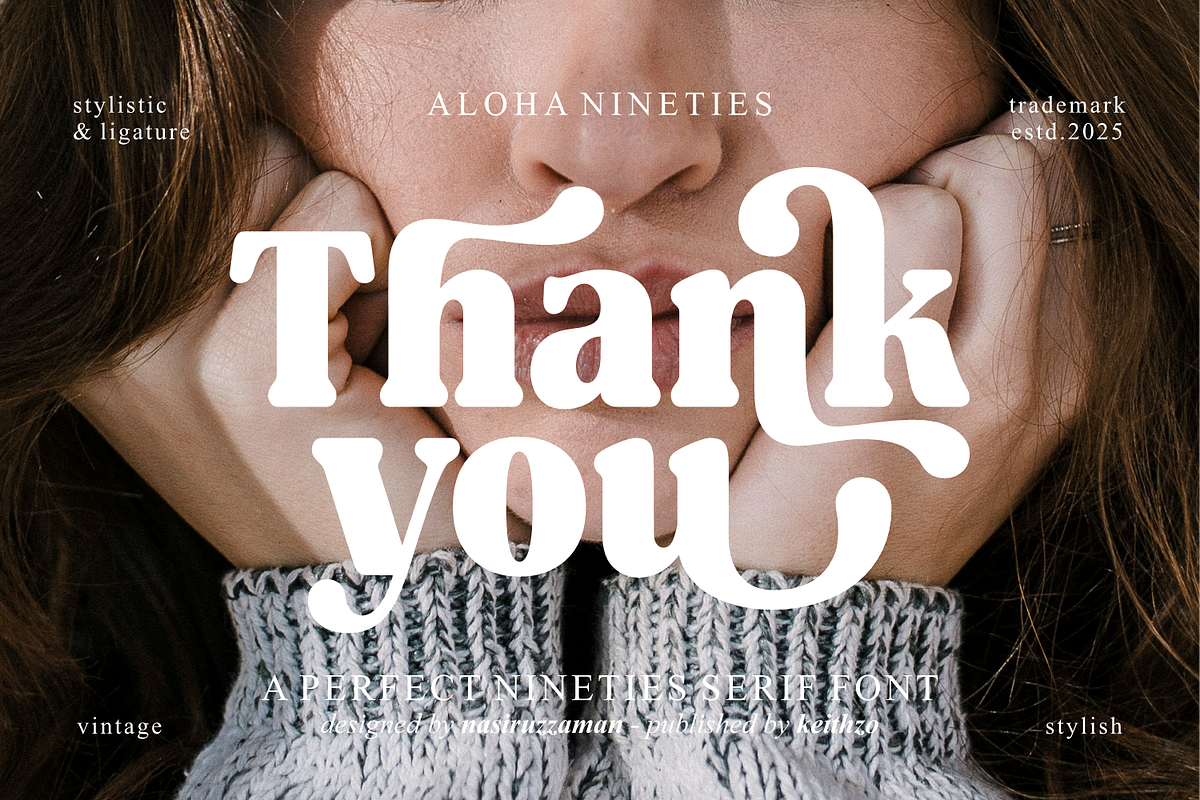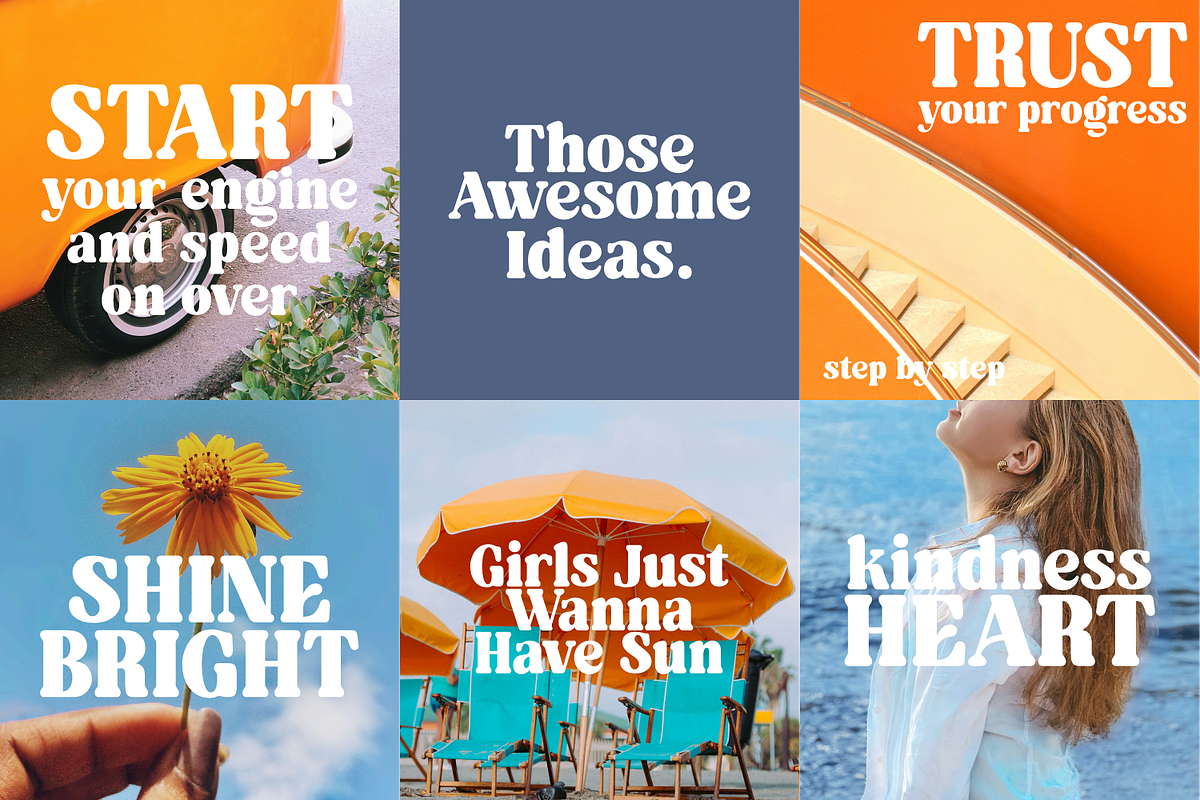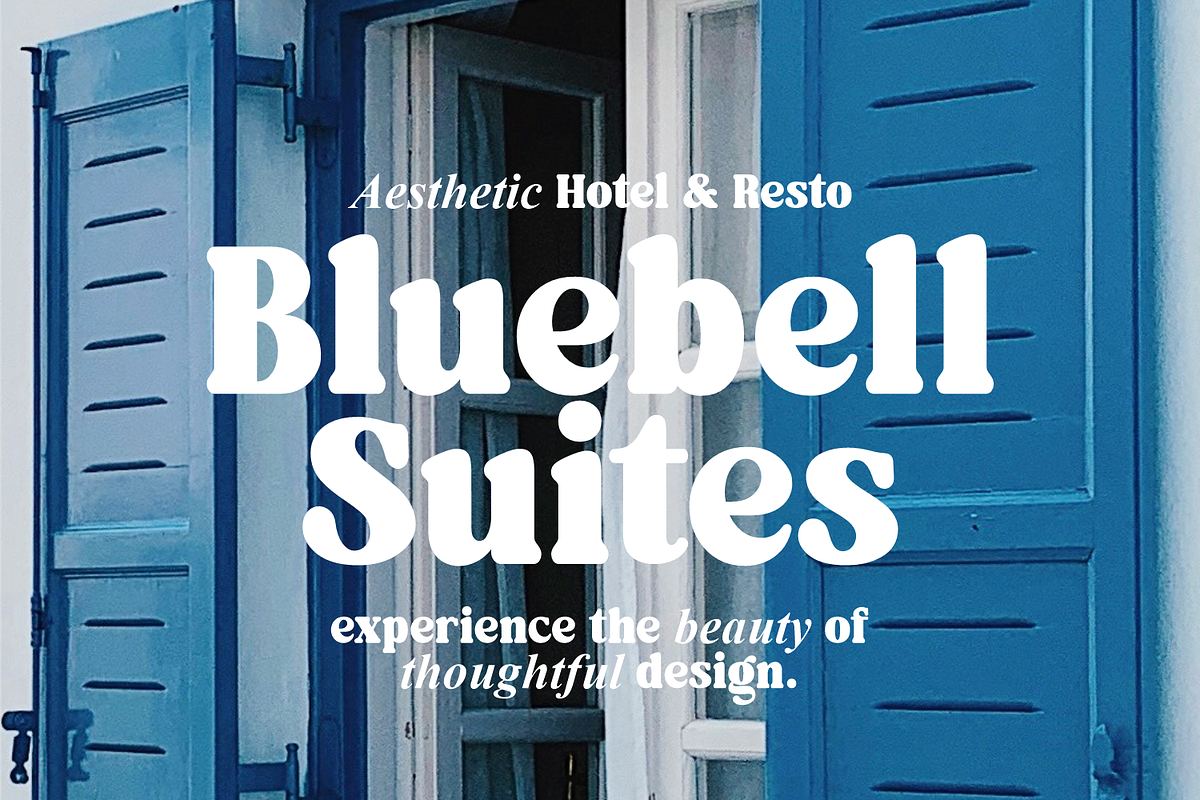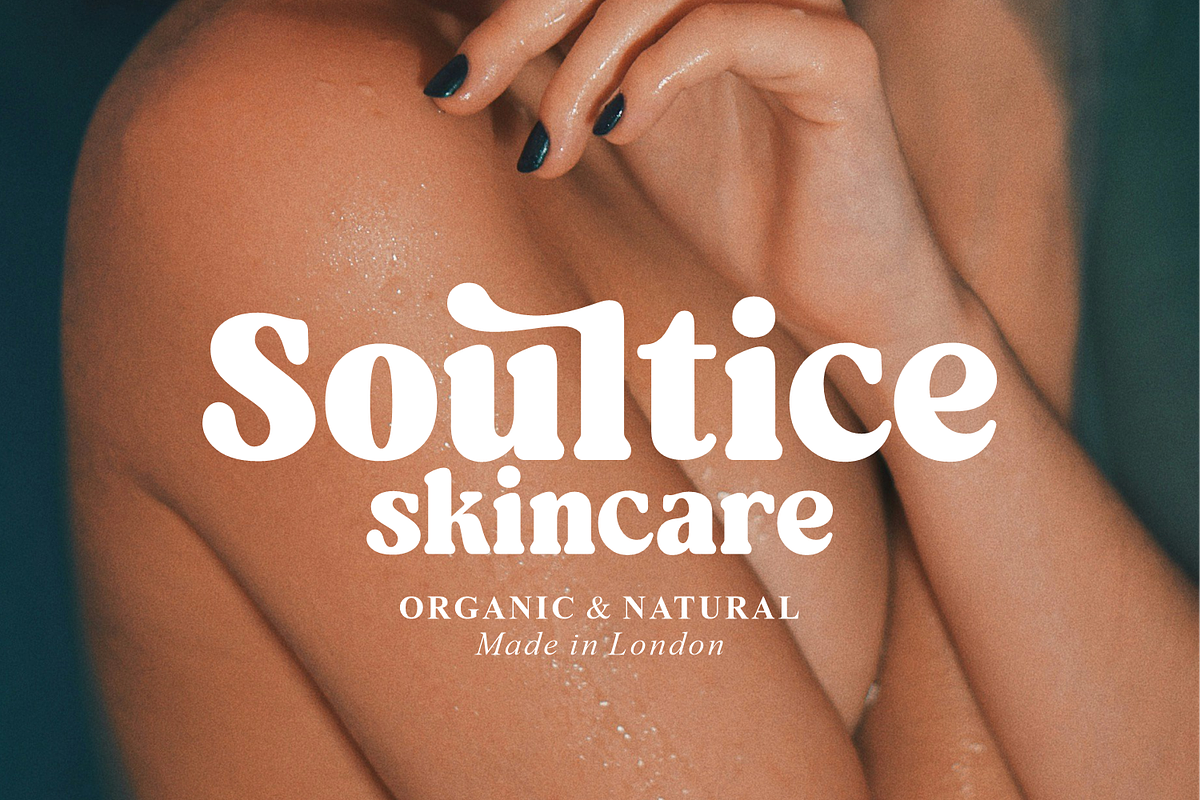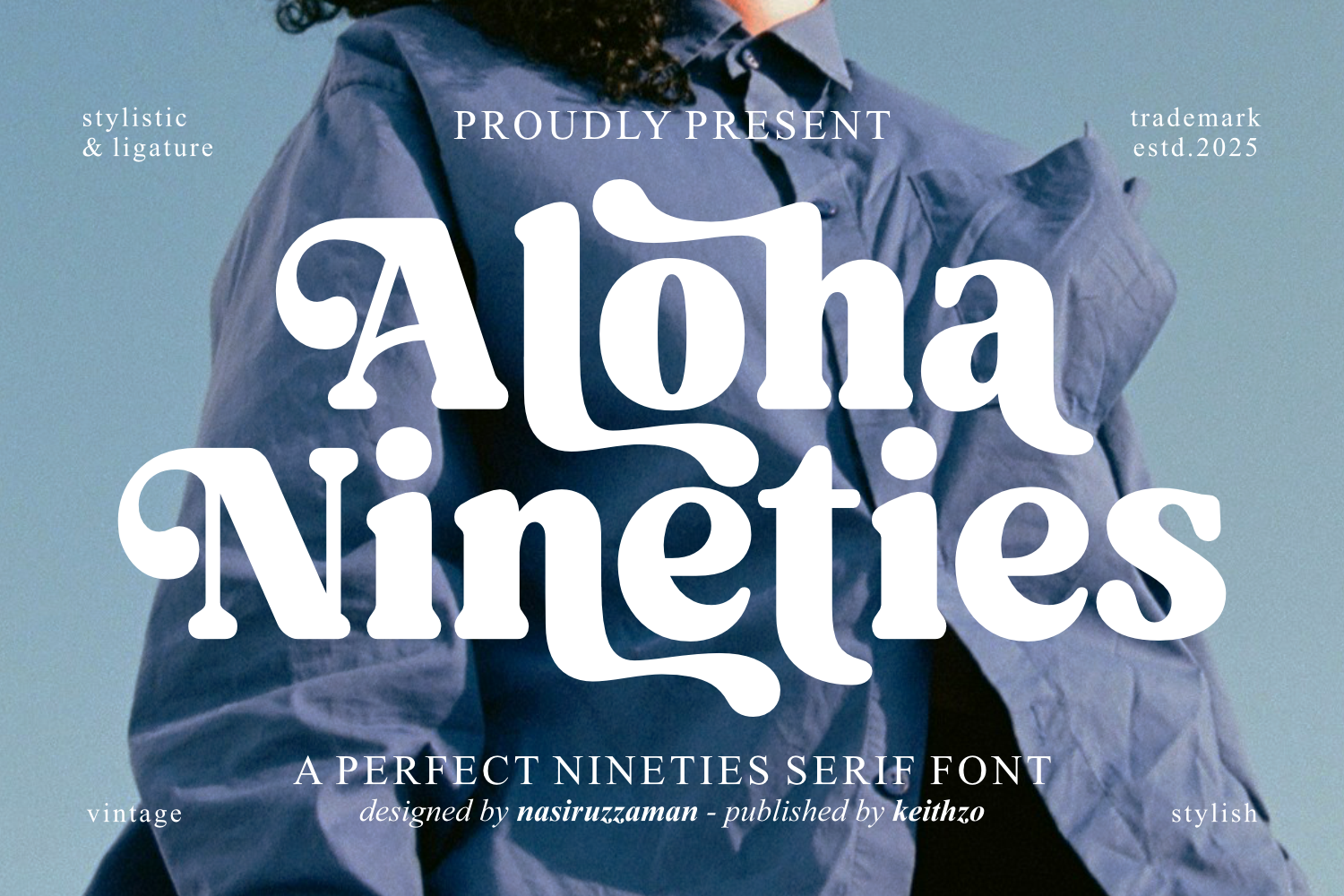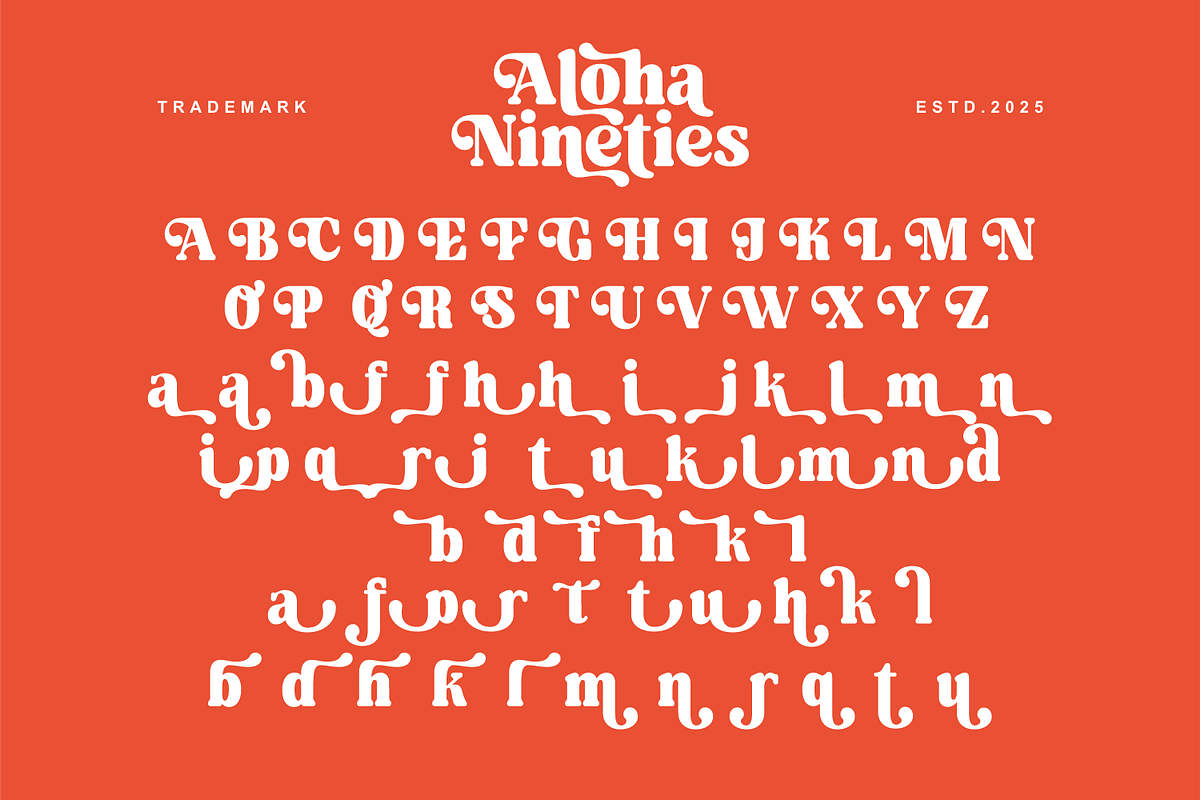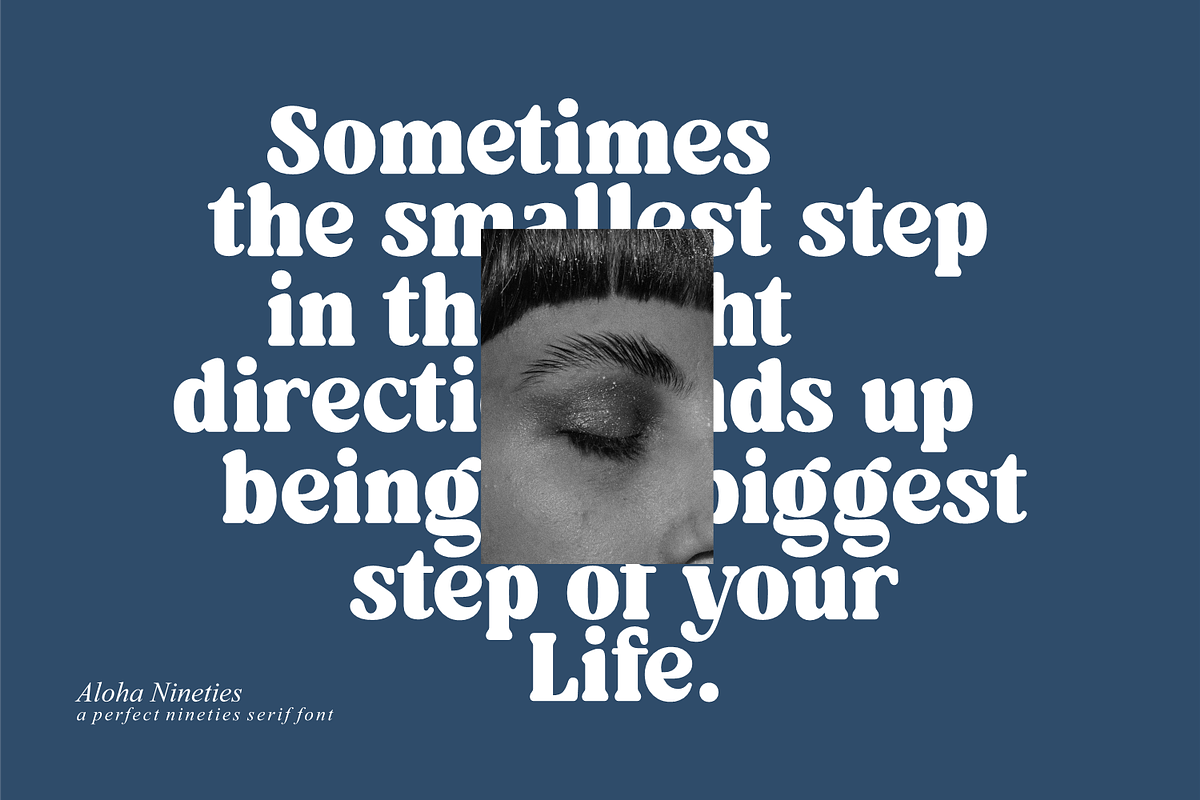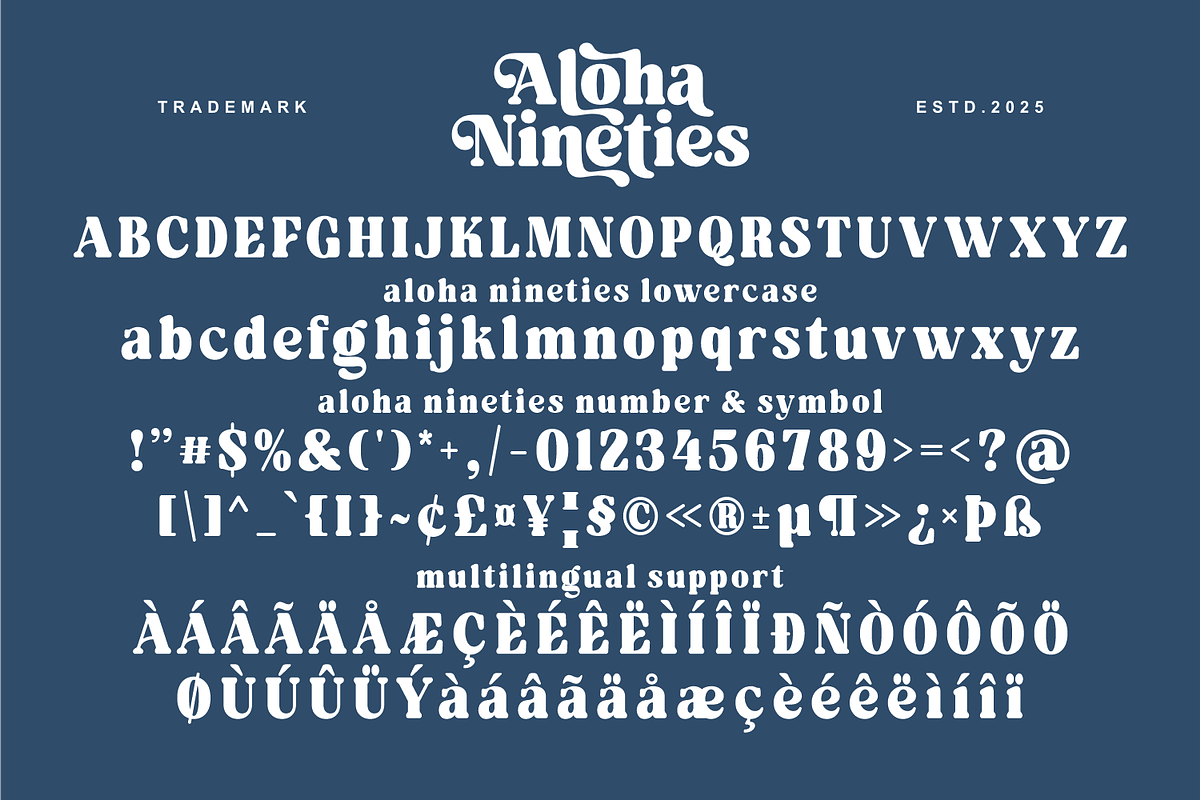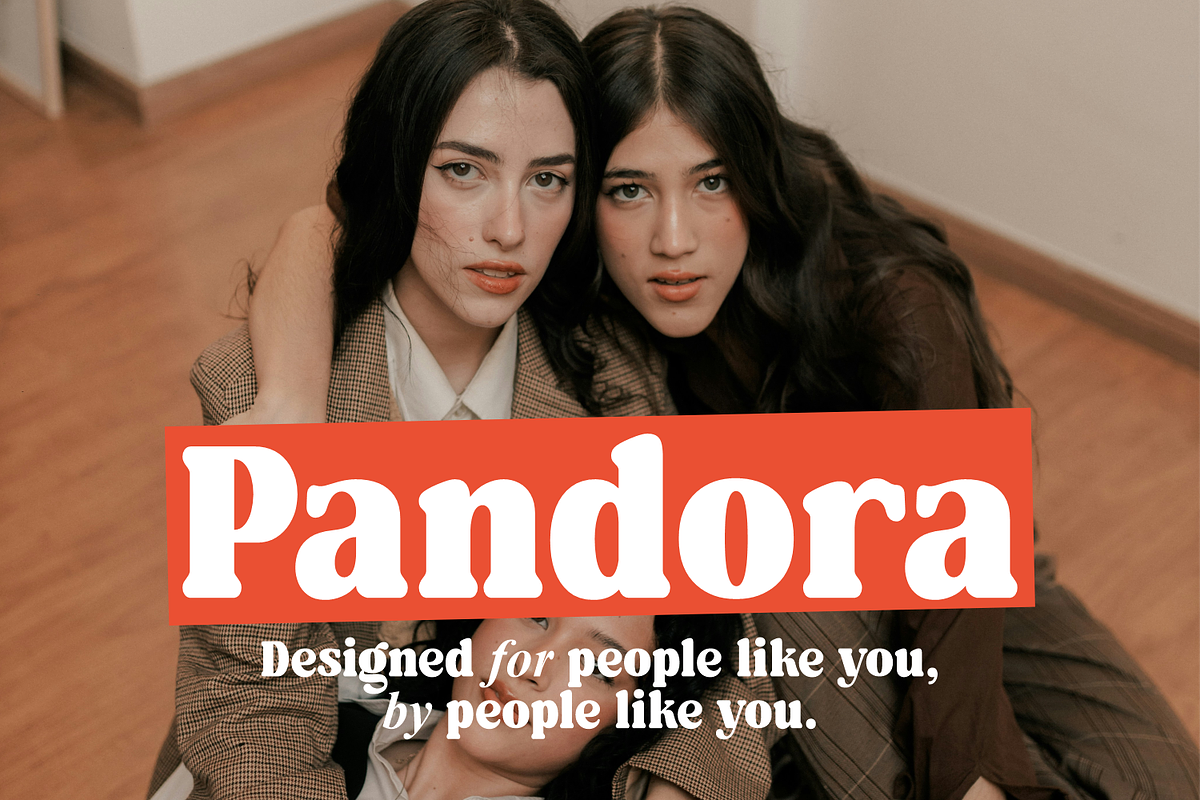
Aloha Nineties - Retro Serif Font
Introducing Aloha Nineties, a bold, one-of-a-kind, retro vintage serif font exuding a classic 90s vibe. This font encompasses simplicity and boldness. Its additional alternative swash character fonts add a unique twist to your design projects, ensuring they stand out from the crowd. Let the Aloha Nineties font elevate the retro aesthetic of your design idea to extraordinary levels.
Being incredibly versatile, Aloha Nineties is equipped with a comprehensive range of characters including uppercase, lowercase letters, numbers, punctuation marks, and multi-lingual support, making it an ideal choice for any project. Its suitability extends to an array of applications, from creating a distinctive logo, designing captivating stickers and packaging, to crafting brand identities that resonate.
Whether it’s for t-shirt design, introducing a timeless charm to headlines, adorning the pages of magazines and books, or creating engaging digital content for YouTube, Instagram, websites, and other platforms, Aloha Nineties is your go-to font. Experience the seamless blend of simplicity, boldness, and retro feel in your creative design projects with Aloha Nineties font.